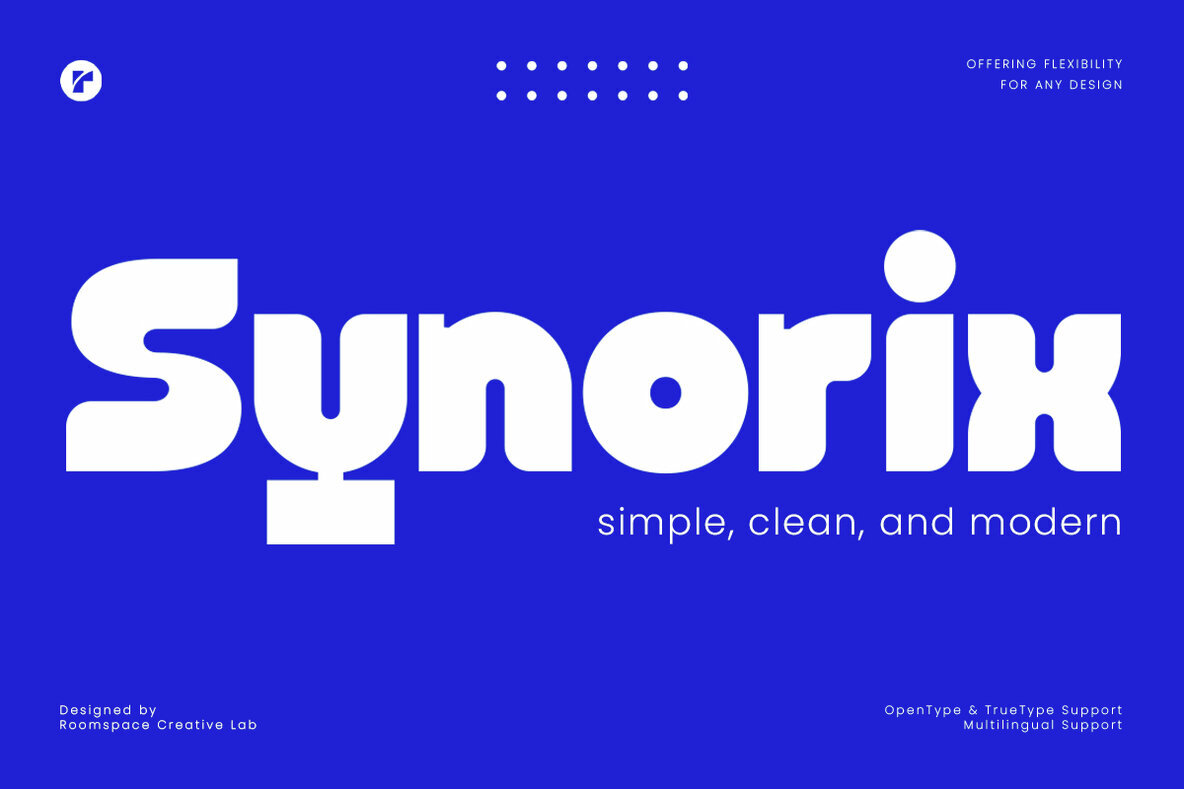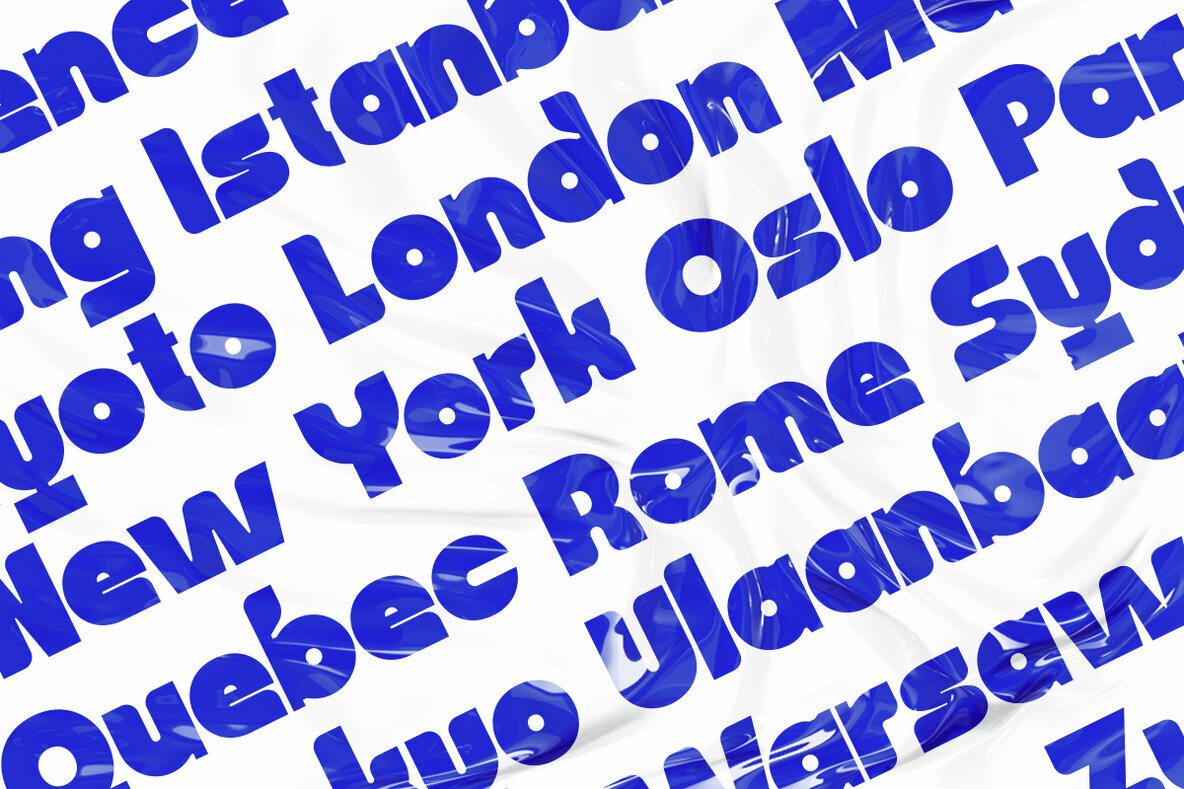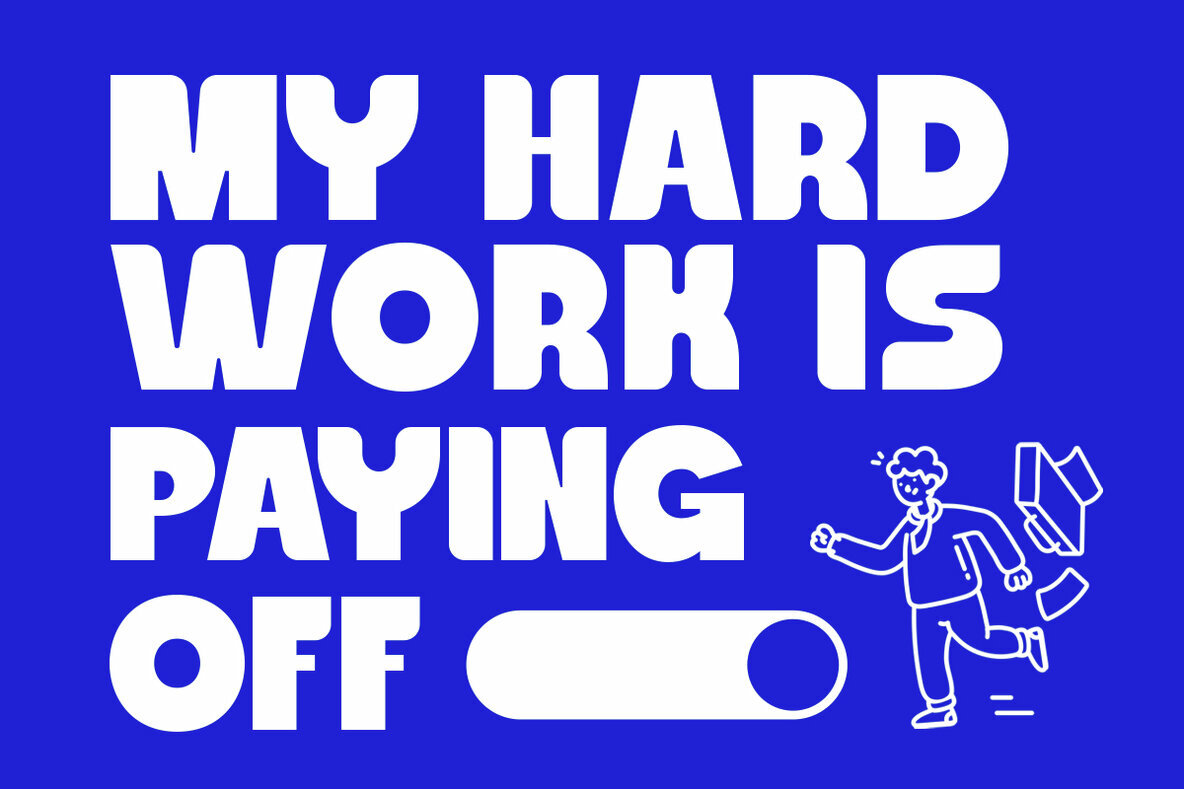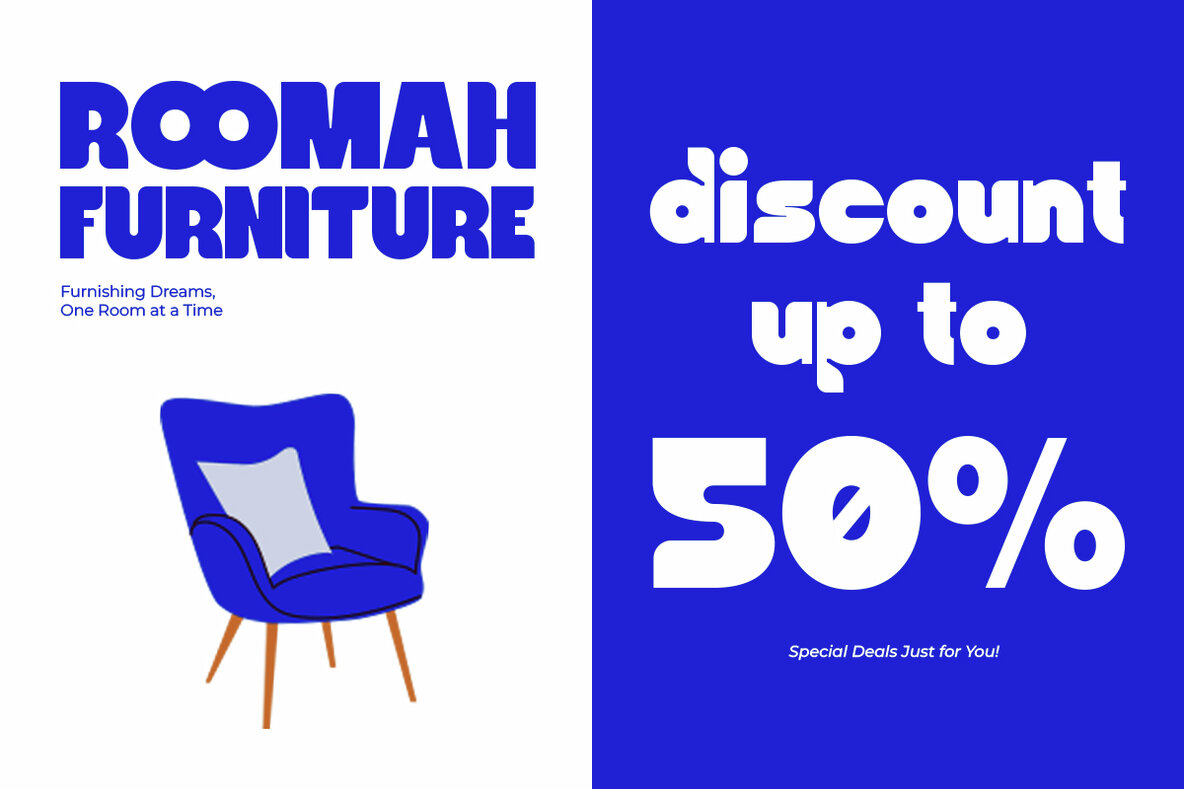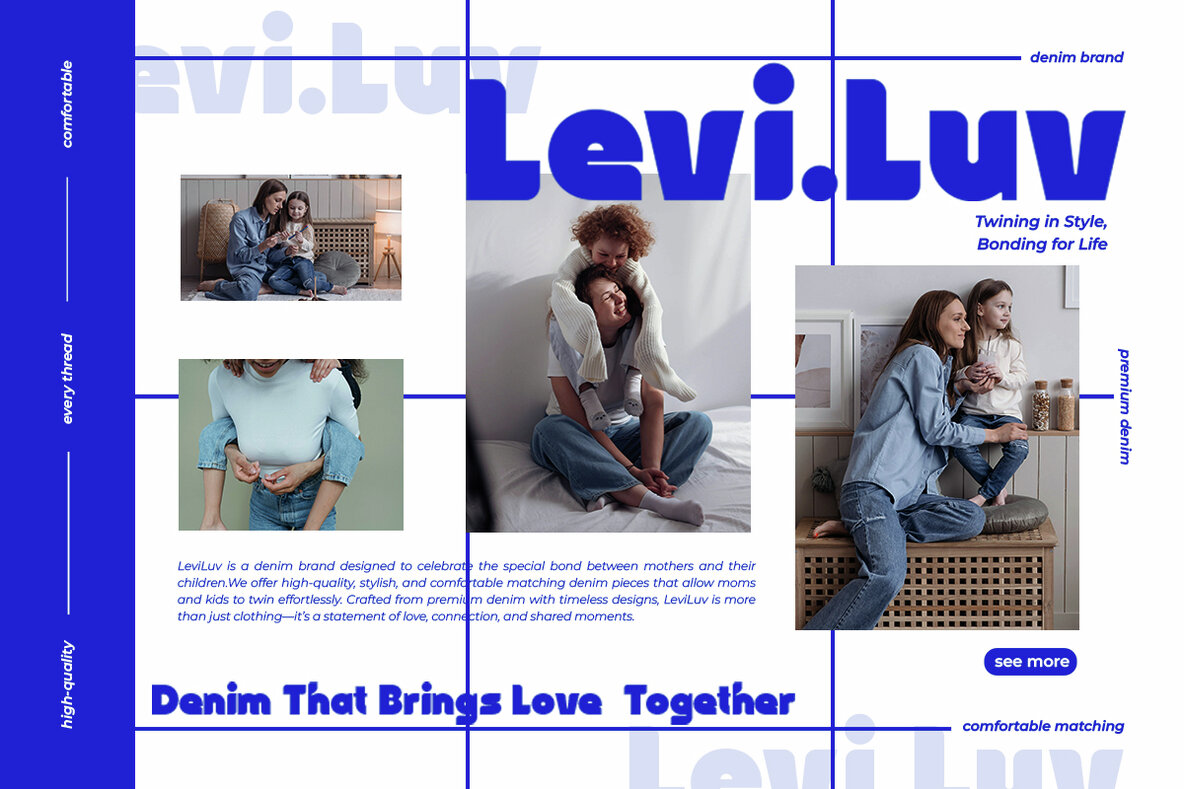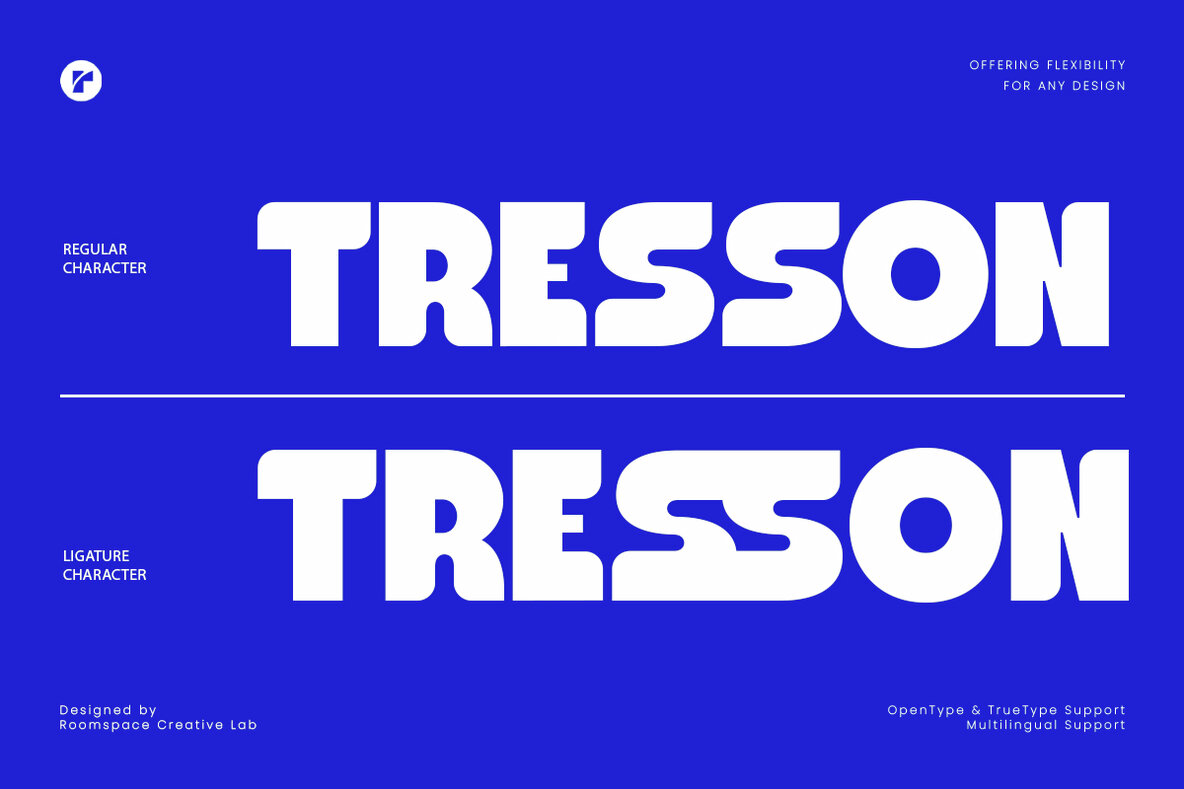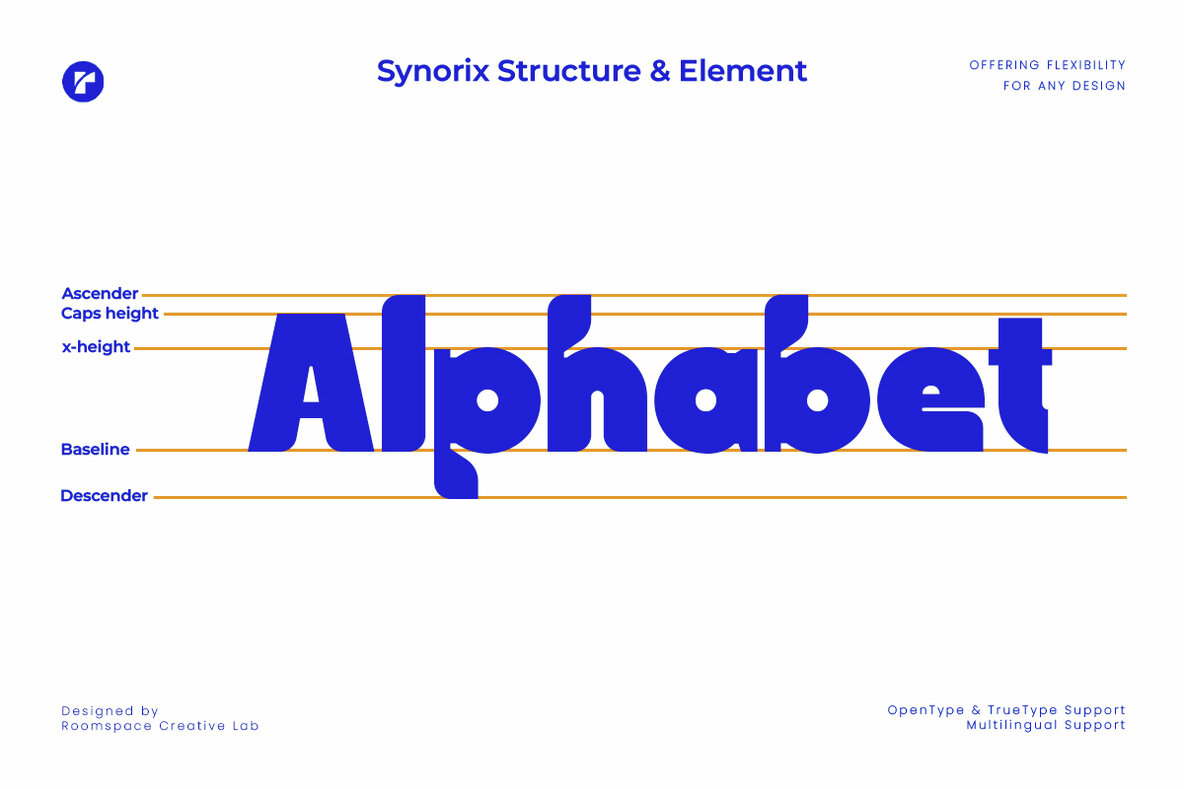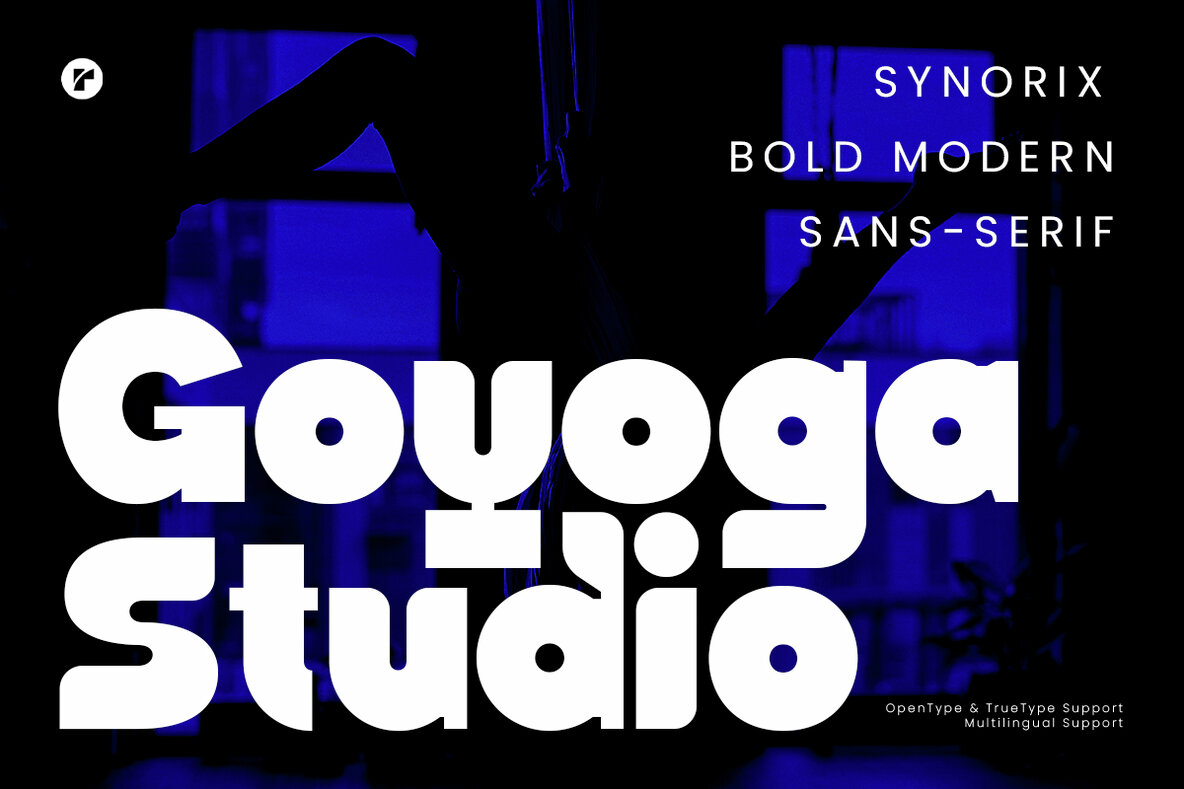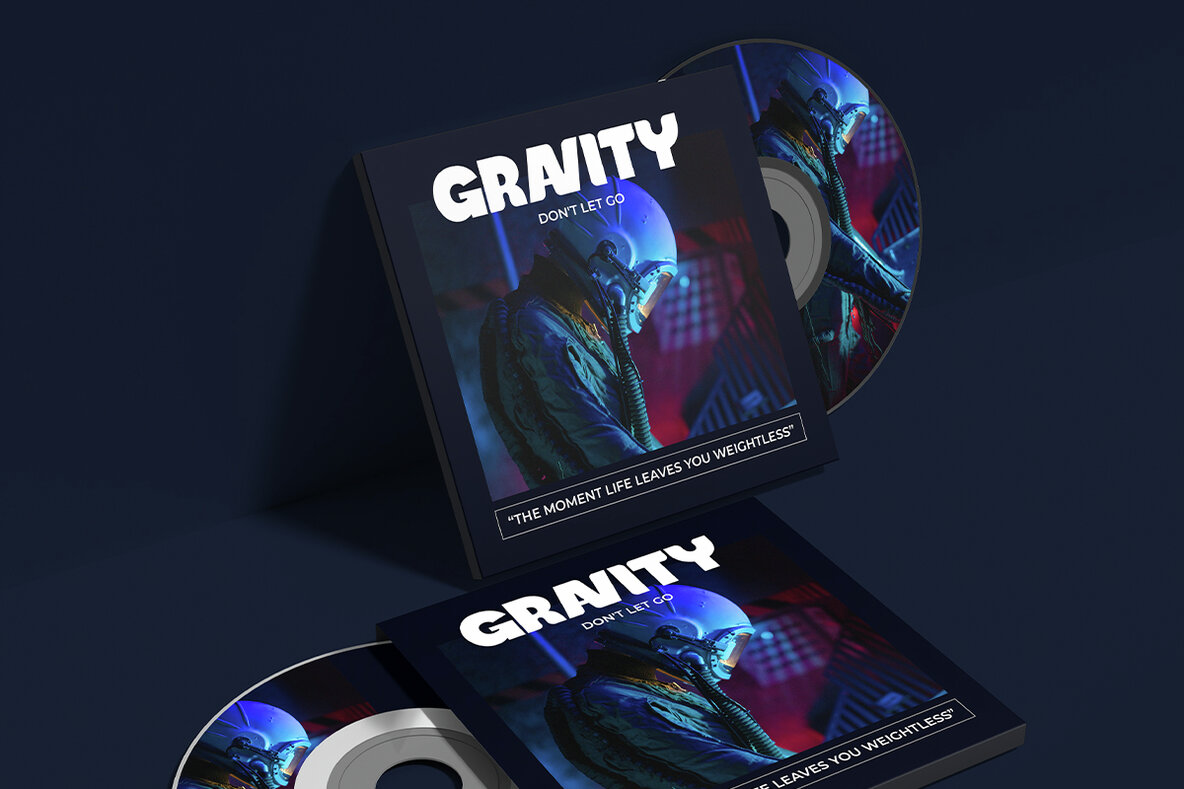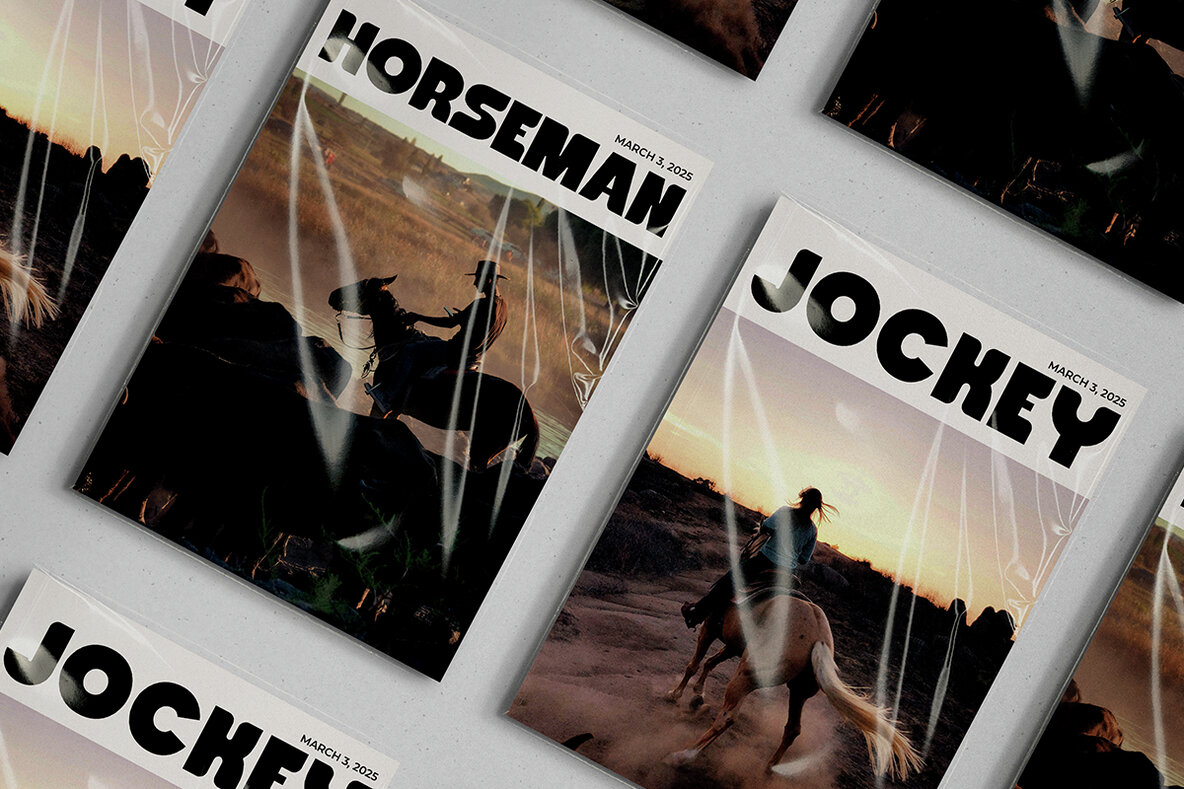
Synorix Font
Synorix Regular
Synorix is a bold and modern sans serif font characterized by its soft, rounded edges and clean aesthetic. This visually striking typeface is ideal for logos, branding, headlines, posters, and more. Synorix’s smooth curves and balanced proportions offer a combination of friendly and strong attributes, making it suitable for both creative and professional endeavors. It effortlessly adapts to various contexts, be it a fashion brand, social media graphics, or a sleek corporate identity, infusing projects with a fresh and contemporary vibe.
This versatile font supports multilingual usage, ensuring global applicability in your design work. Key features include regular ligatures, uppercase and lowercase letters, as well as numbers and punctuation, allowing for comprehensive design possibilities. Compatible with both PC and Mac, Synorix is simple to install and ready to bring a touch of bold simplicity to your creative projects.